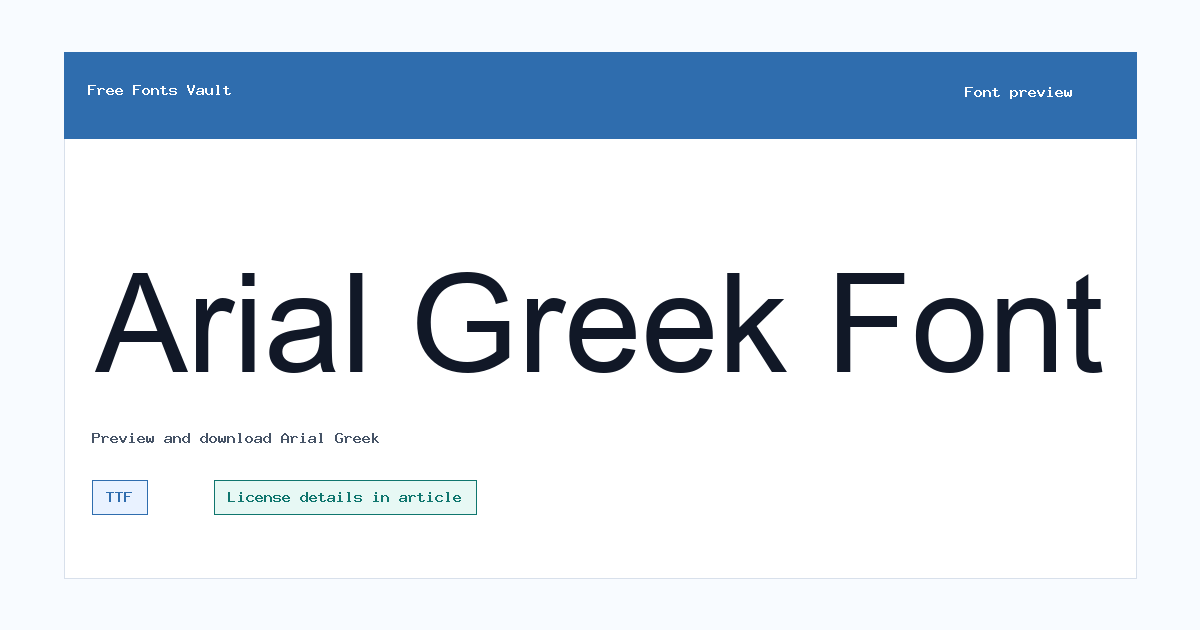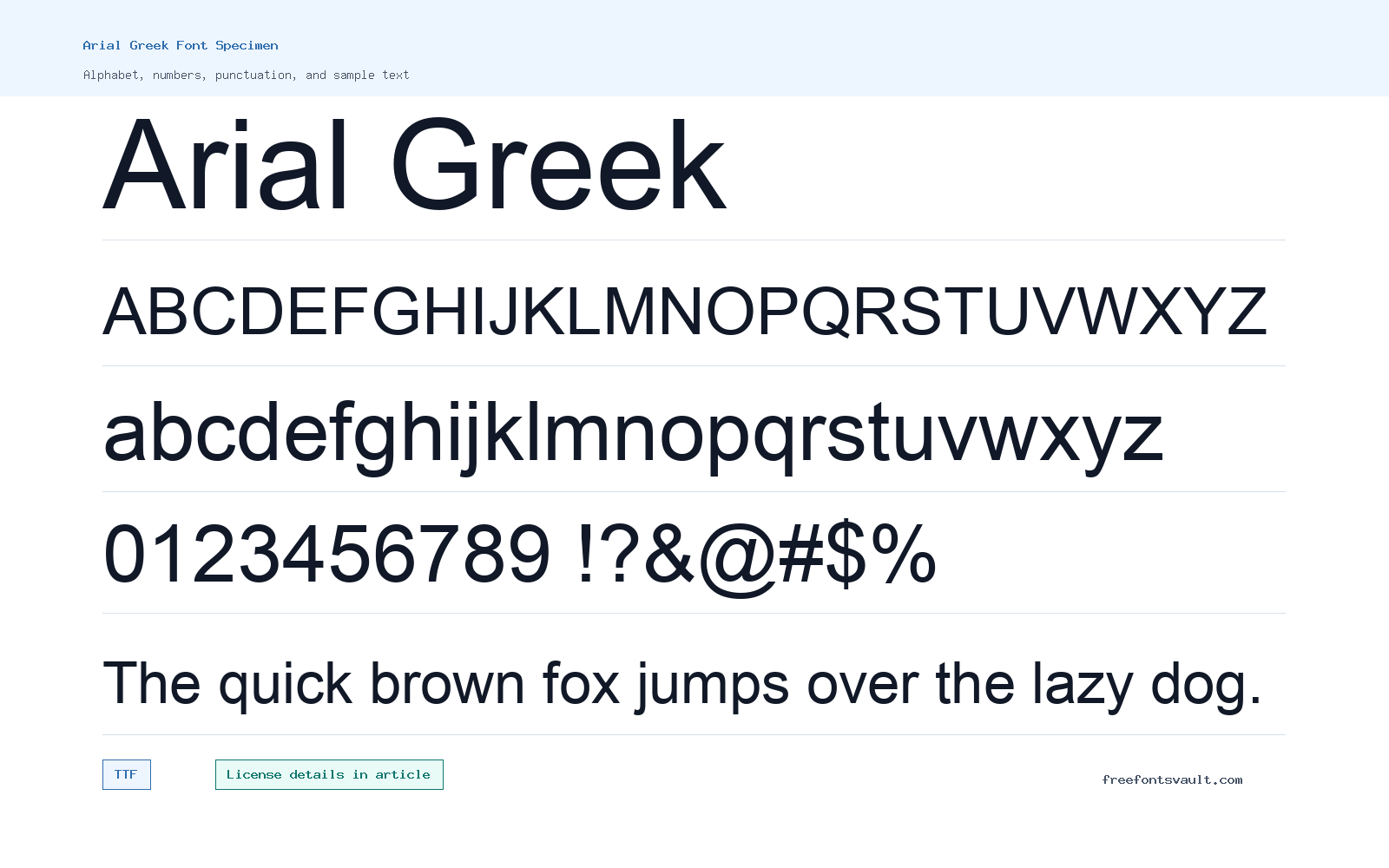
Arial Greek
Arial Greek is a Regular TrueType font for previewing Greek text in a familiar Arial-style sans serif design. It is useful when you want a clean, practical Greek type sample without decorative styling.
About Arial Greek
Arial is described by Microsoft as a contemporary sans serif with softer, fuller curves and diagonally cut terminal strokes, giving it a less mechanical look than many older industrial sans serif faces. Arial Greek follows that practical direction for Greek script, so it works best when the goal is clear reading rather than a distinctive display personality.
Use the preview box to test real Greek words, accents, punctuation, numbers, and mixed Latin-Greek text. The Regular weight is best suited to simple headings, interface mockups, reference samples, school materials, and short body text tests. For long reading, compare spacing and line height carefully, especially at smaller sizes, because a familiar sans serif can still feel tight depending on the layout.
- Clean Arial-style sans serif forms for Greek text previewing
- Useful for checking Greek letter shapes, accents, punctuation, and mixed-script samples
- Greek text previews and typography comparisons
- Simple headings, labels, and interface mockups
- Educational samples where a plain sans serif style is preferred
Microsoft lists Arial as designed by the Monotype Type Drawing Office, Robin Nicholas, and Patricia Saunders in 1982. Arial Greek copyright notes credit Monotype Typography Ltd. and Type Solutions Inc. for the typeface and file data from 1990-1993.
What is Arial Greek best used for?
It is best used for previewing Greek text in a plain Arial-style sans serif, testing mixed-script layouts, and comparing Greek letterforms before choosing a production font.
Who made Arial Greek?
Arial is credited by Microsoft to the Monotype Type Drawing Office, Robin Nicholas, and Patricia Saunders. The Arial Greek file copyright text credits Monotype Typography Ltd. and Type Solutions Inc.